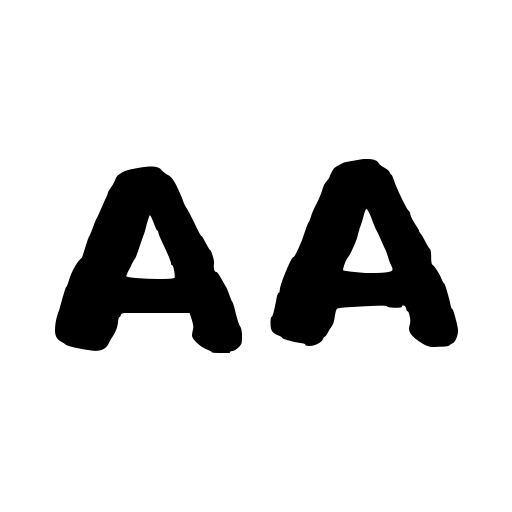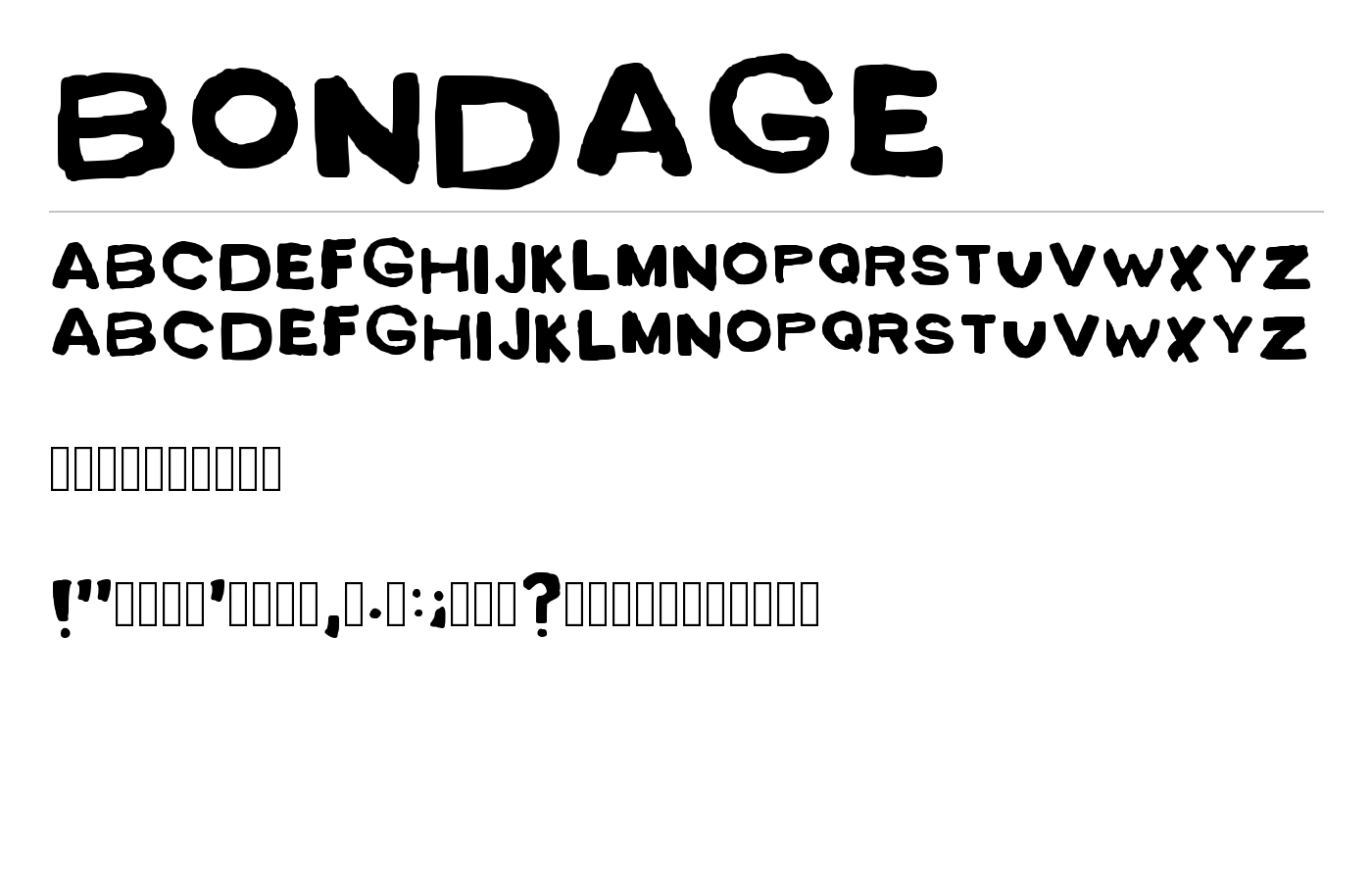
Bondage is a bold, hand-drawn sans serif font with a playful and slightly rough texture that gives it a casual, handcrafted feel. Its rounded, irregular shapes and thick weight make it ideal for informal designs, making it perfect for posters, children’s projects, or any creative work that needs a fun, approachable touch. This font stands out in headlines and display uses where personality and charm are key.
Bondage Font
About Bondage Font